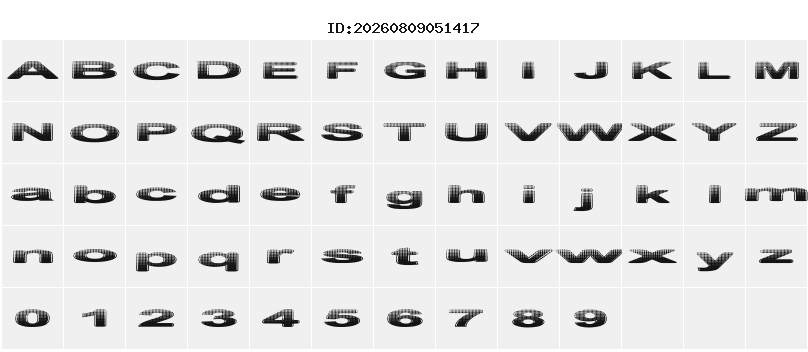
Philtered Phont Preview
• Font Name: Philtered Phont
• Font ID: Philtered Phont
• Full Font Name: Philtered Phont
About Philtered Phont.ttf
Philtered Phont.ttf is a modern, elegant sans-serif font designed for ultimate readability and visual harmony. Perfect for branding, headlines, web design, and print materials.